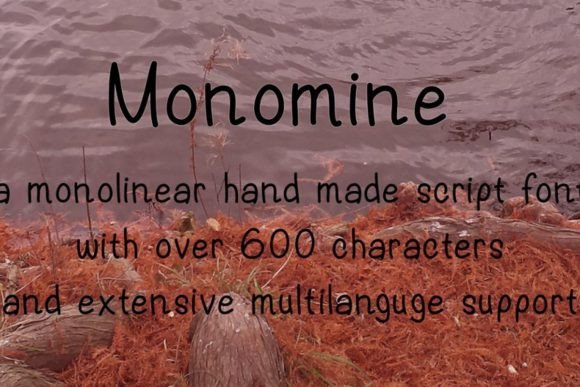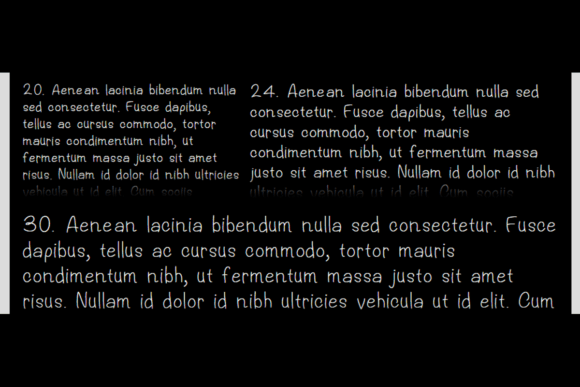
Introduction to Monomine Font
Have you ever found yourself staring at a blank page, desperately searching for the perfect font to bring your creative project to life? For many designers, this is a familiar feeling, and one that can be both frustrating and exhilarating. It’s in these moments that we come across a game-changer – a font that not only elevates our design, but also speaks to our unique aesthetic.
Enter the Monomine Font, a stunning mono-linear hand-made script font that’s sure to capture the hearts of designers and creatives alike. With its high-quality design and transparent background, this versatile font is the perfect addition to any project, from wedding invitations to branding materials.
What makes the Monomine Font truly special, however, is its ability to add a personal touch to any design. Whether you’re working on a free download or a paid project, this font is sure to provide the unique, hand-crafted look that sets your work apart from the rest.
Key Features of Monomine Font
- High-quality design resource for creative projects, suitable for various applications such as logos, branding, and digital art.
- Monomine Font offers a transparent background, making it easy to customize and integrate into different design elements.
- Available in a single size, making it versatile for use in various design contexts, from small icons to large-scale typography.
- Resolution is suitable for high-resolution designs, ensuring crisp and clear text rendering.
- Unique, modern design aesthetic that sets it apart from other fonts, making it an ideal choice for designers looking to add a touch of creativity to their projects.
Honest Review: Monomine Font
As a designer, I’m always on the lookout for high-quality design resources that can elevate my creative project. The Monomine Font caught my eye with its sleek and modern aesthetic, and I was excited to give it a try.
Here’s what works well: ✨ The font is incredibly versatile and can be used for a wide range of applications, from branding to digital design. The transparent background makes it easy to use in conjunction with other design elements, and the font’s clean lines and minimalistic design make it perfect for modern designs.
- ✨ High-quality design that’s perfect for modern designs
- ✨ Transparent background for easy use with other design elements
However, there are a few limitations to consider: ⚠️ The font may not be suitable for traditional or classic designs, as it’s quite modern and sleek. Additionally, the font family is relatively small, which may limit its use in complex design projects.
Overall, I’m impressed with the Monomine Font. It’s a great addition to any designer’s toolkit, and its free download makes it an excellent resource for designers on a budget. With a little creativity, this font can help take your design project to the next level.
Introduction to Monomine Font
The Monomine Font is a high-quality design resource ideal for creative projects. Its sleek and modern design makes it perfect for a variety of applications, from digital to print media.
Tips for Getting the Most Out of Monomine Font
For optimal results, use the Monomine Font on a transparent background to create a clean and modern look. Experiment with different font sizes and styles to add visual interest to your design.
The Monomine Font is suitable for a variety of creative projects, including:
- Print media, such as business cards and brochures